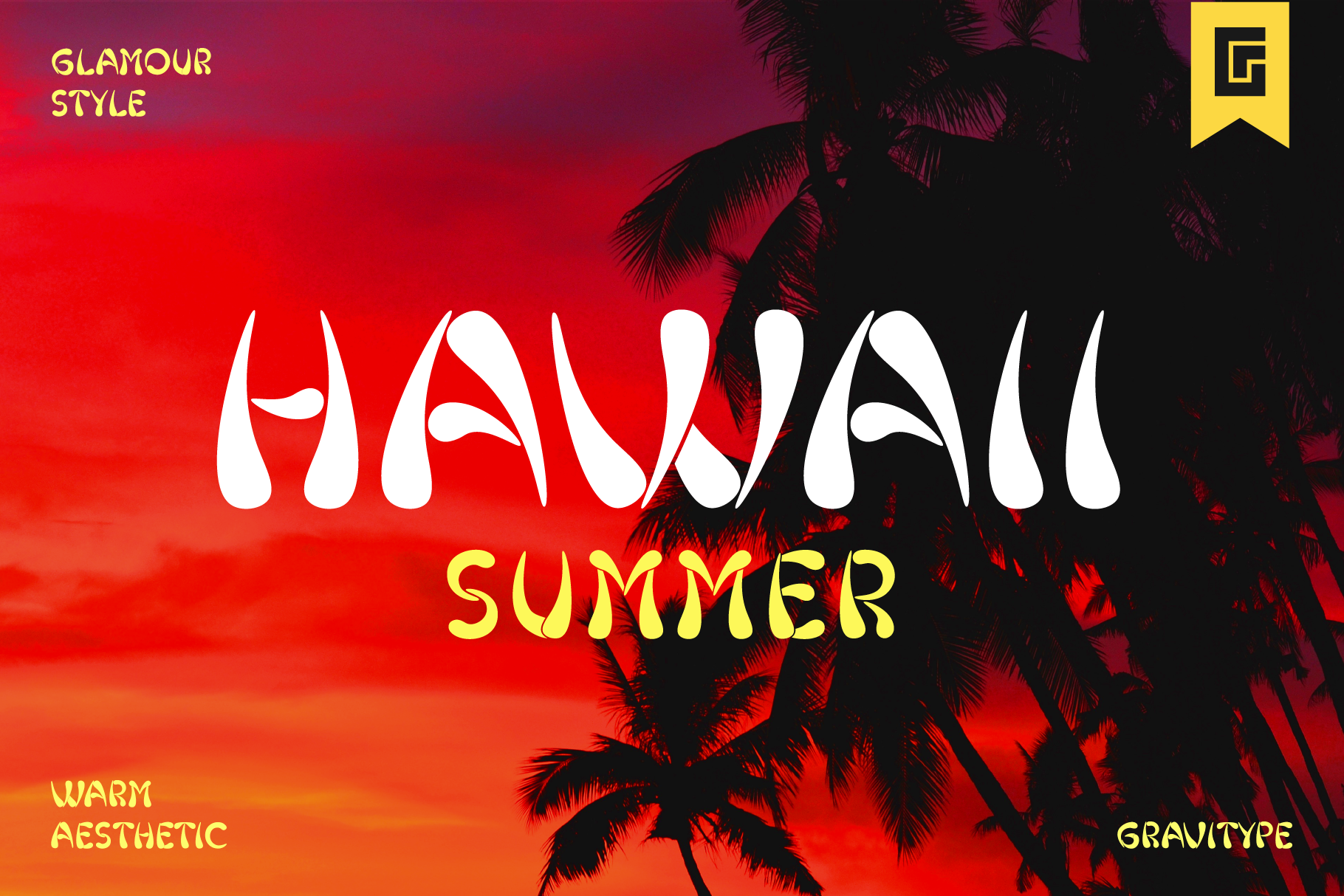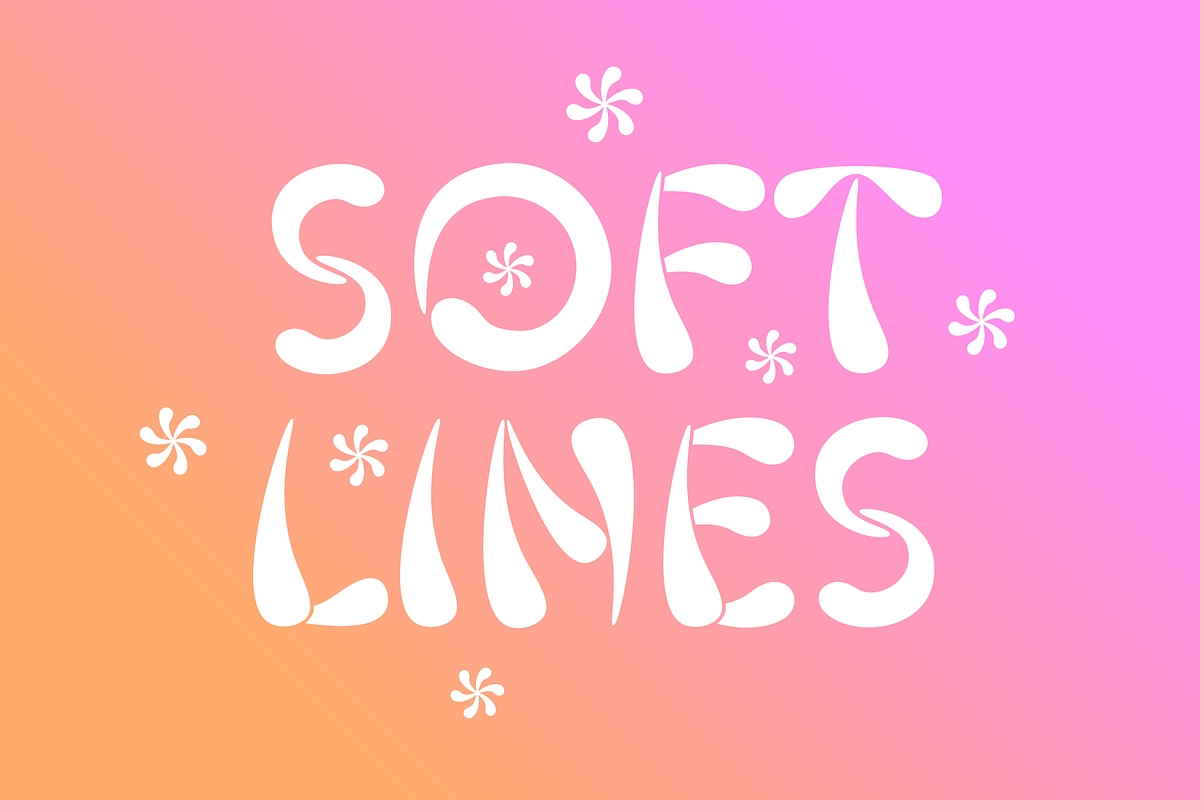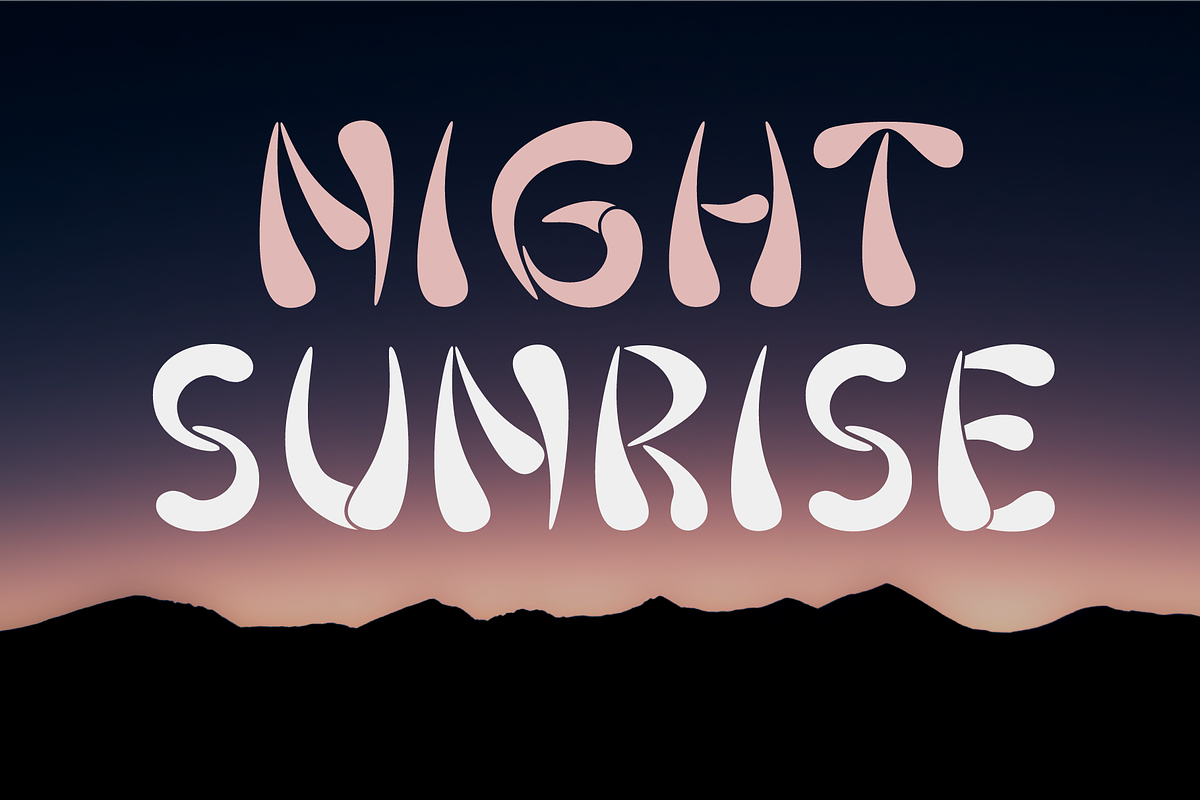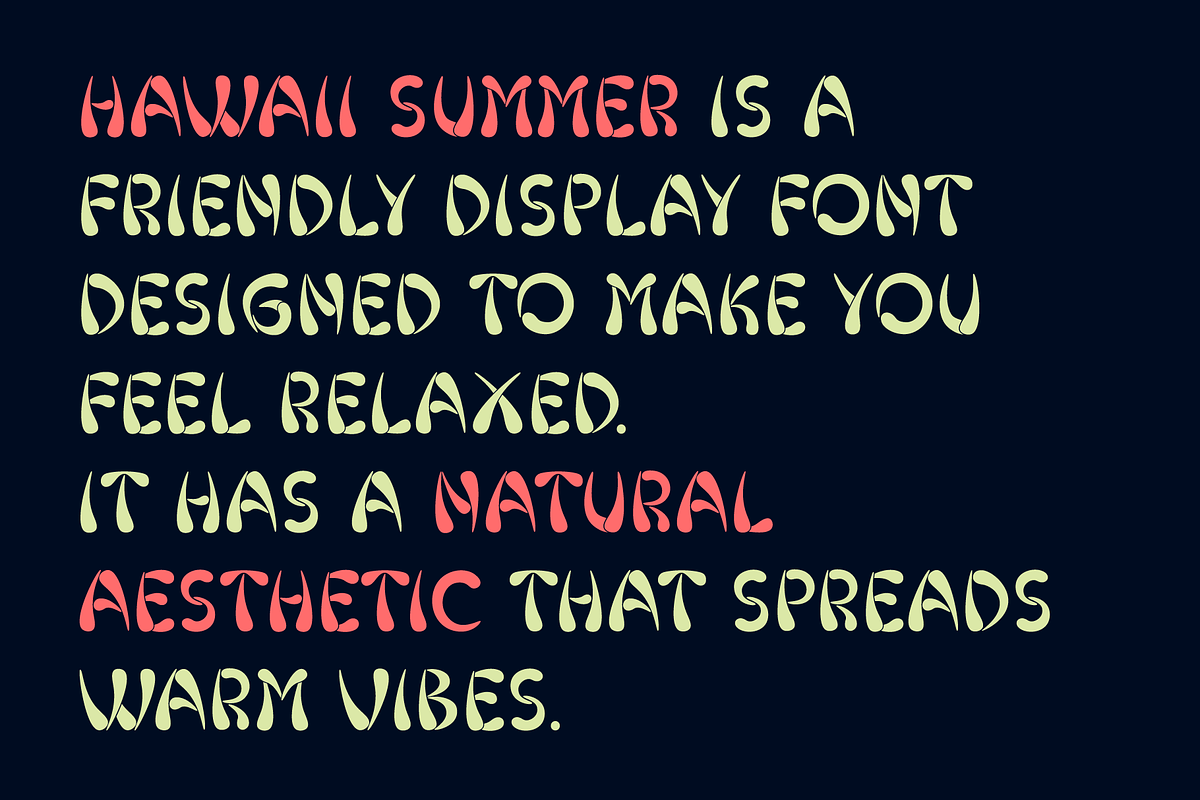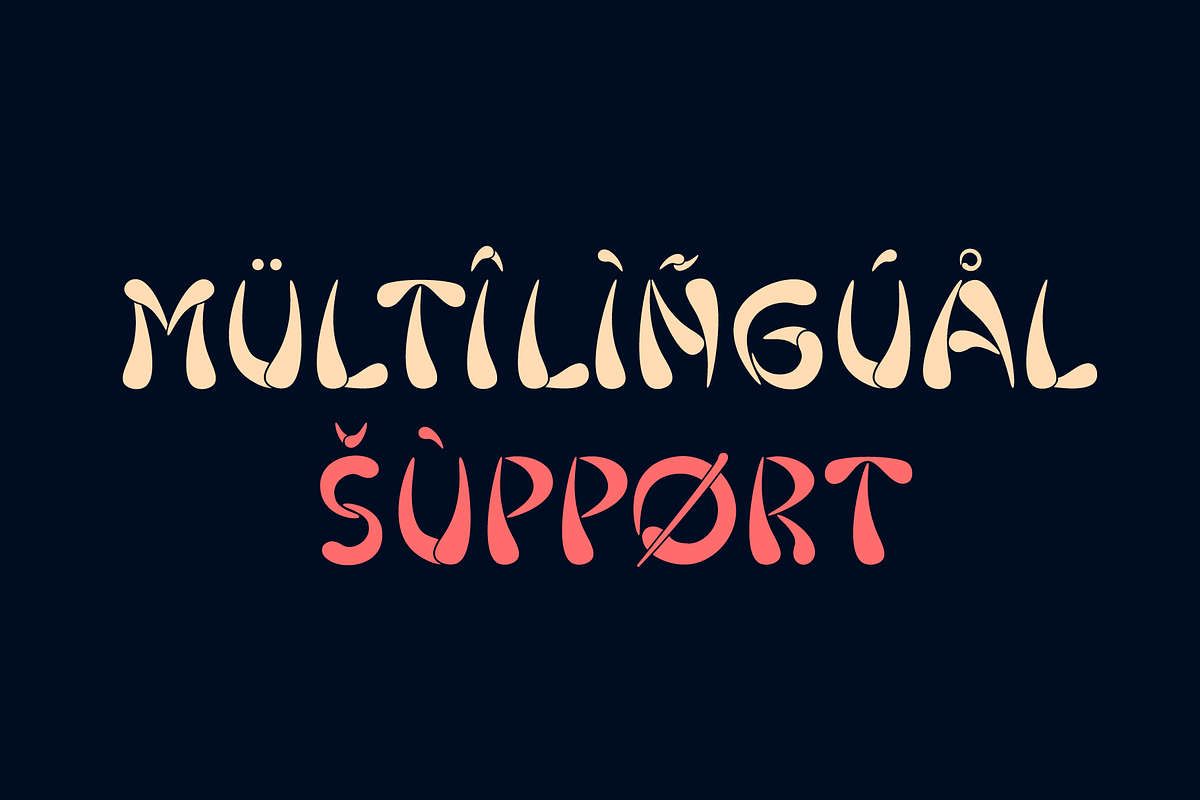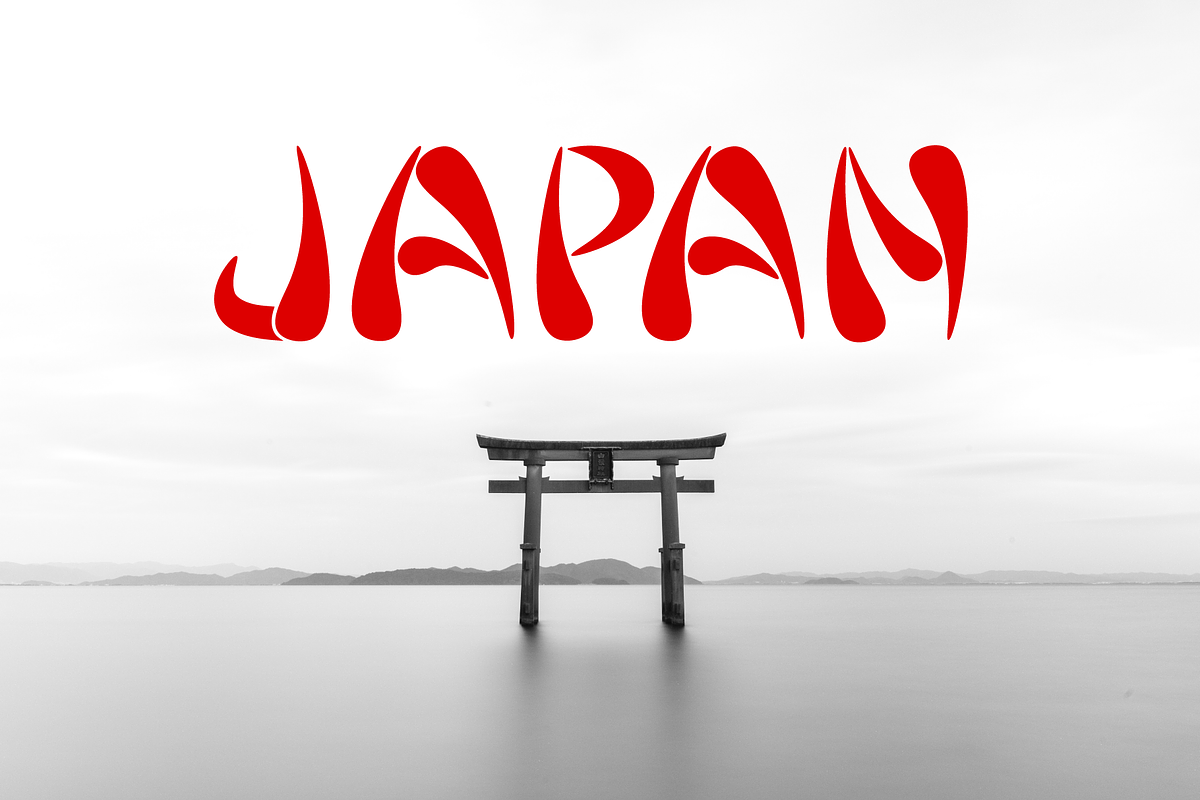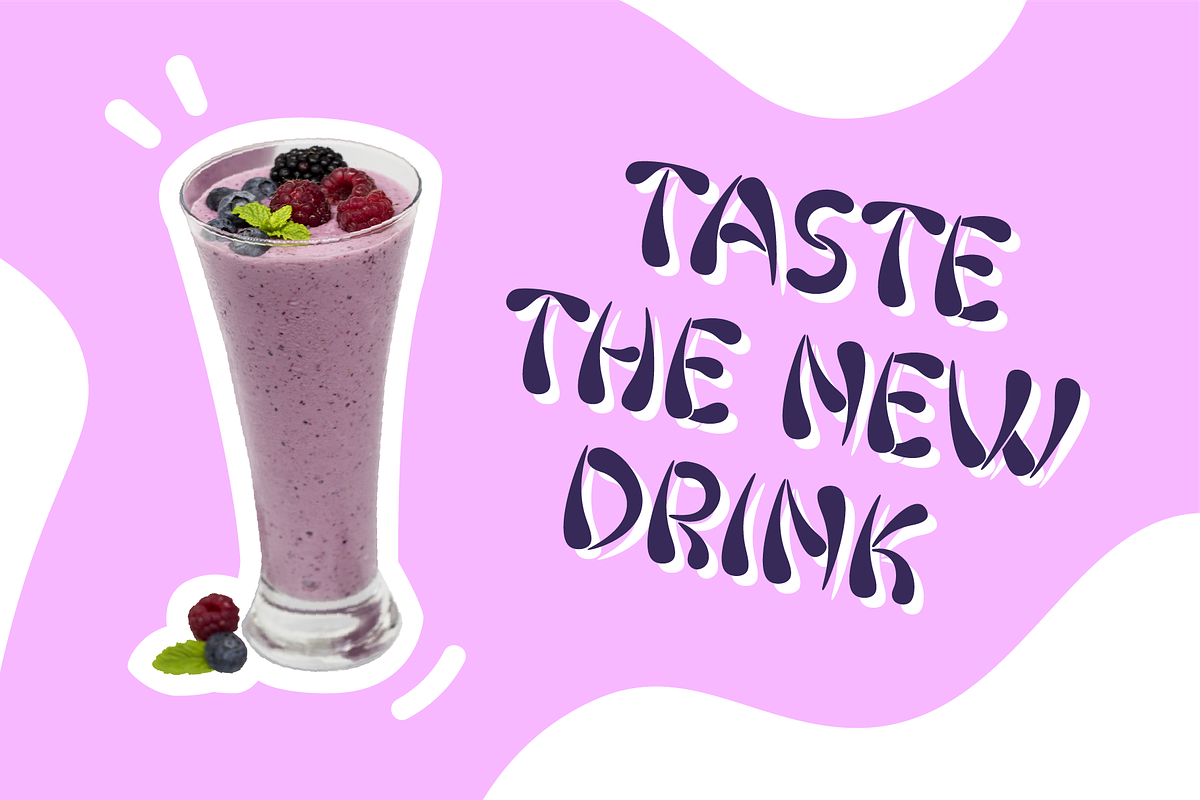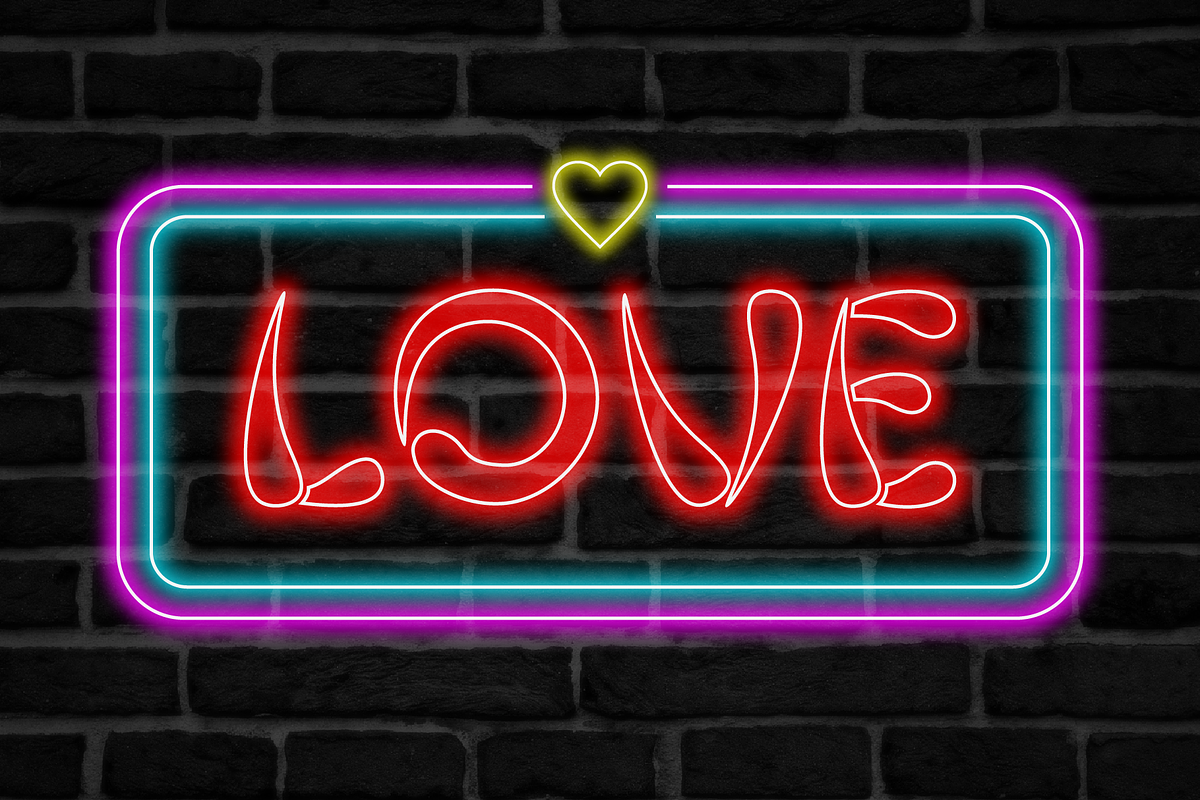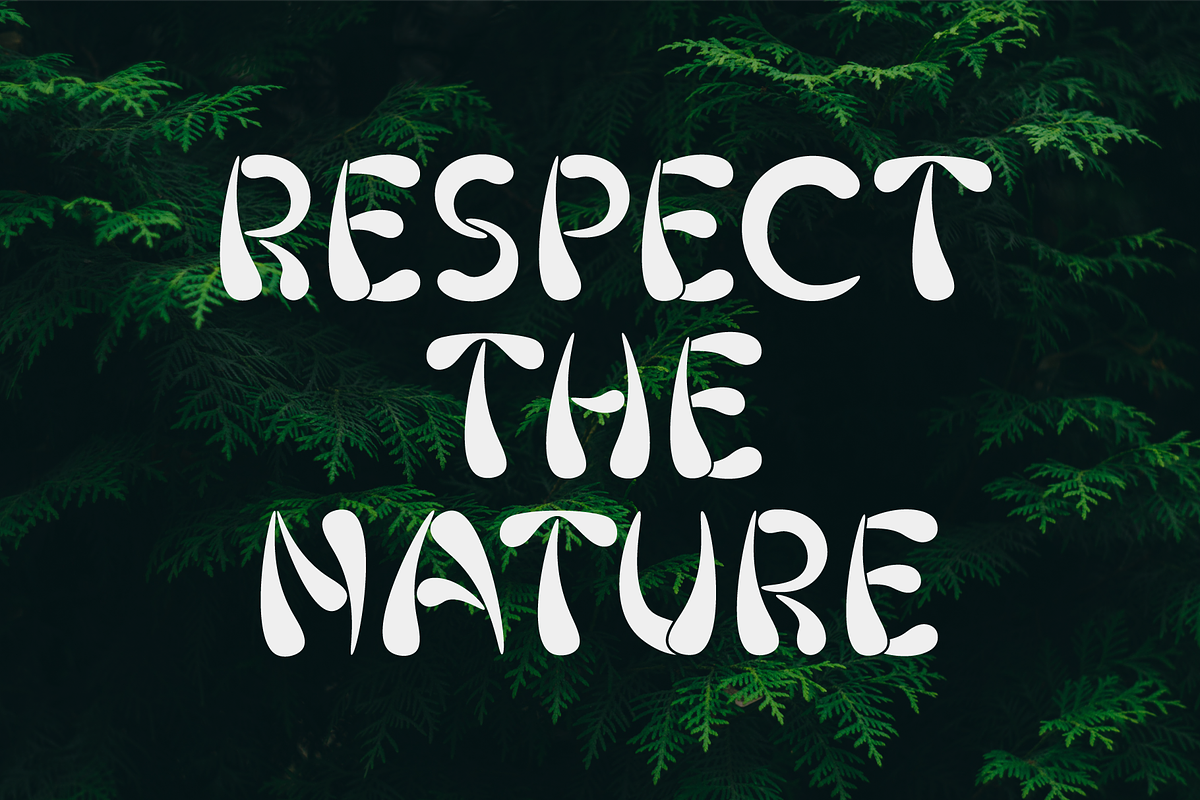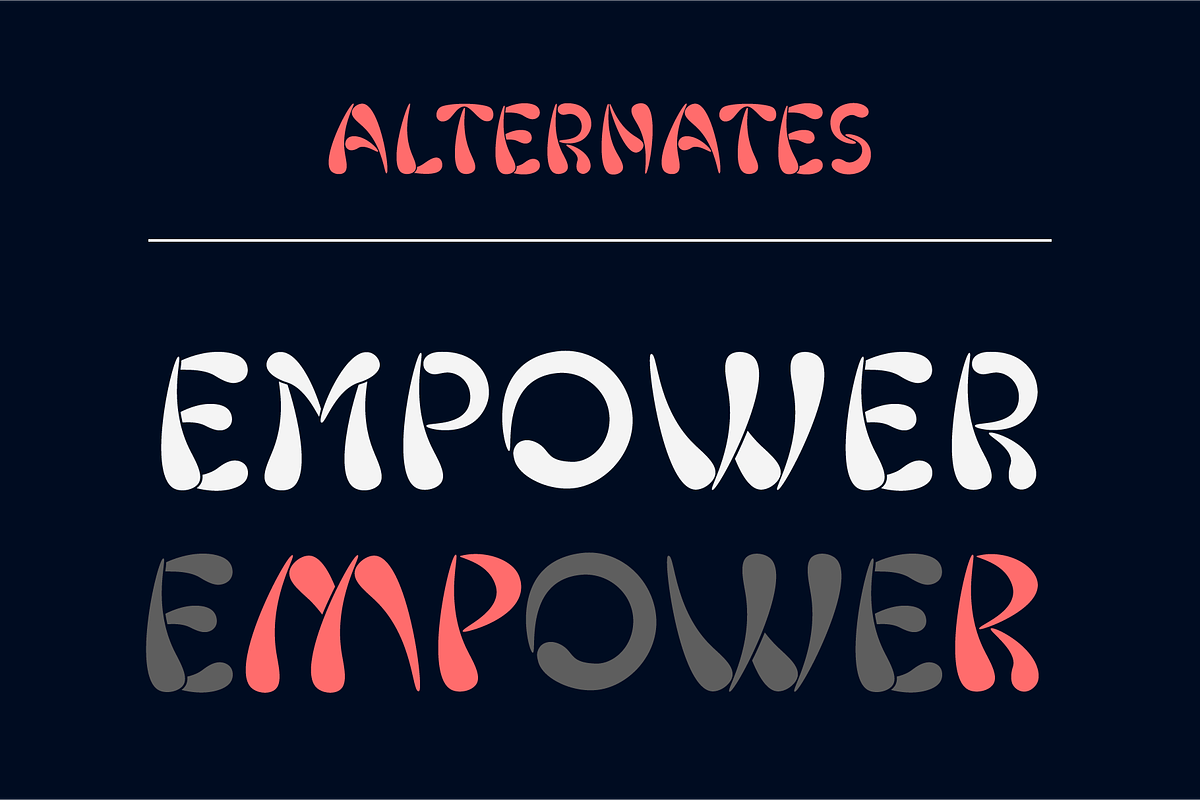
Hawaii Summer - Playful Groovy Font
Hawaii Summer is a fresh and playful display font, designed to bring a unique style to your projects.
Its natural look makes this typeface perfect to be integrated in exotic environments, thanks to the warm vibes that its lines transmit.
It is suitable in multiple situations, like for: food and beverage, bar signs, packaging, t-shirts, flyers, magazines, posters, ad campaigns, social media, banners, etc...
Stylistic alternates are included for letters:
- “m” to be the inverse of “w” and thus be more symmetrical, for example, if a logo design requires it
- “p” and “r” with a slightly decreased contrast to appear neater, especially for big size text like headlines
Hawaii Summer supports multiple languages to be tourist-friendly ;)